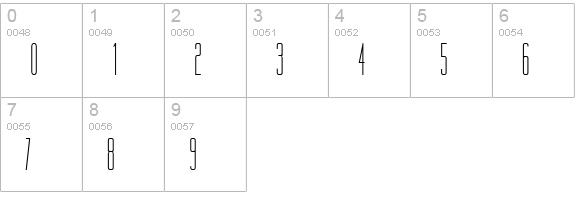
Gorgio Condensed Normal Font Details
Gorgio Condensed Normal is the standard, neutral, condensed-width variant in the Gorgio typeface family \xE2\x80\x94 well suited to general body text, paragraphs, and standard typographic work.
Gorgio Condensed Normal font is a sleek and modern typeface that exudes elegance and sophistication. Its condensed design makes it perfect for creating eye-catching headlines, signage, and branding materials. The clean lines and balanced proportions of this font give it a timeless appeal that will elevate any design project. What's even better is that Gorgio Condensed Normal font is available for free download at FontsMarket.com. Whether you're a designer looking to add a touch of class to your work or a business owner wanting to make a bold statement with your branding, this font is a versatile and stylish choice. Don't miss out on the opportunity to enhance your designs with this high-quality typeface that is both elegant and free to use.